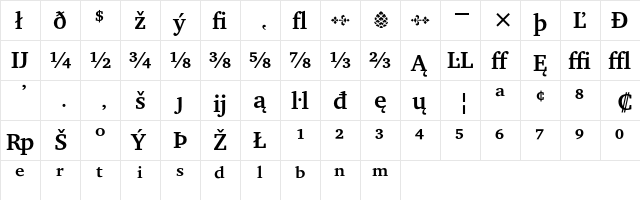
Charter Bold Extension
Design Context for Charter Typeface
Charter offers clean, dependable letterforms without strong stylistic allegiance, making it a practical choice for designers who need flexibility. Its bold stroke weight gives it real presence on the page.
Pro Tip: Use Charter in both headline and body roles to test its range before committing to a single application.